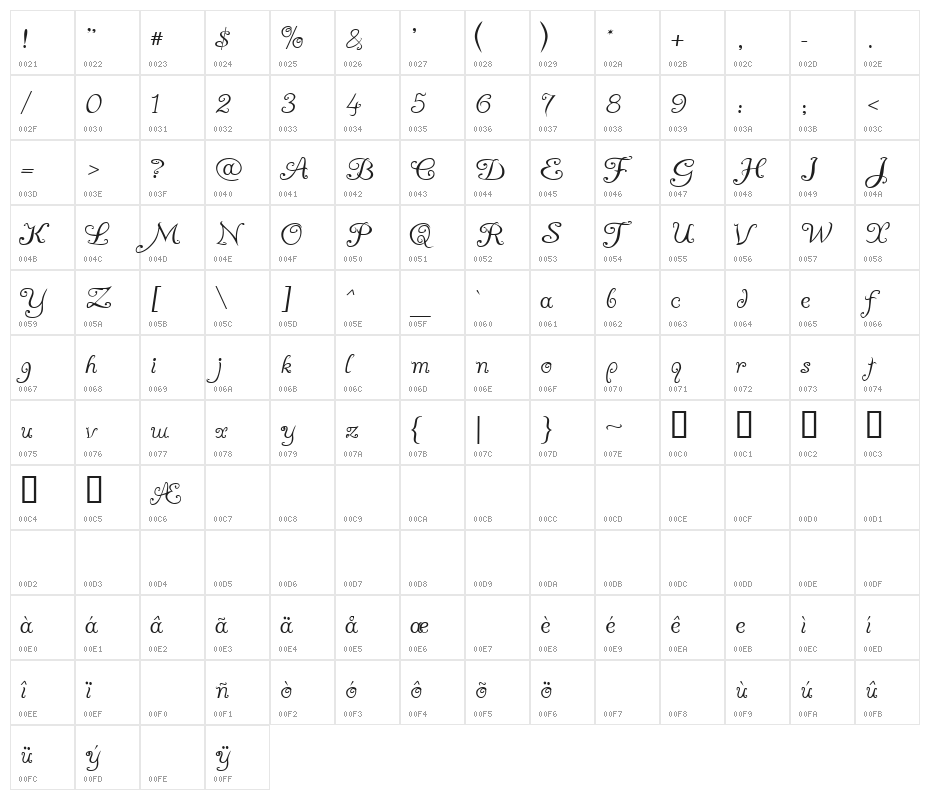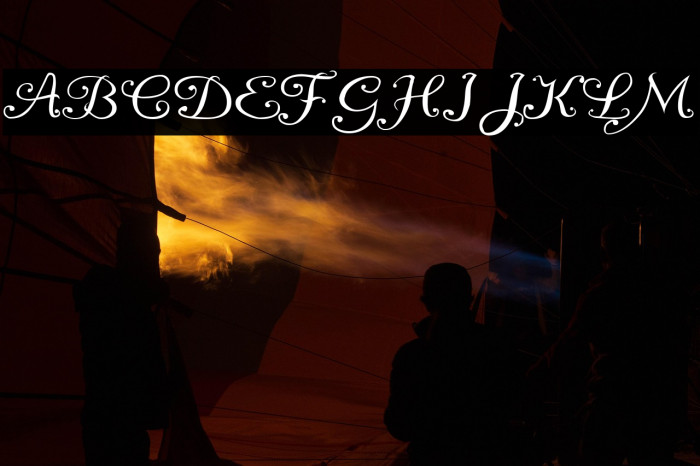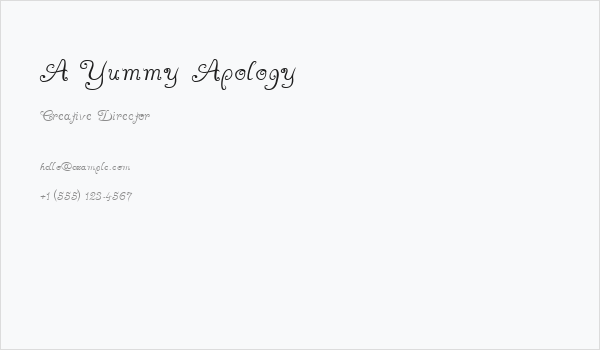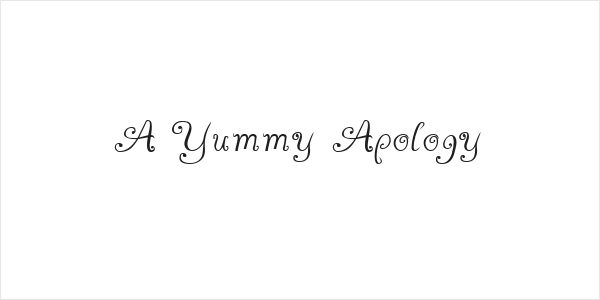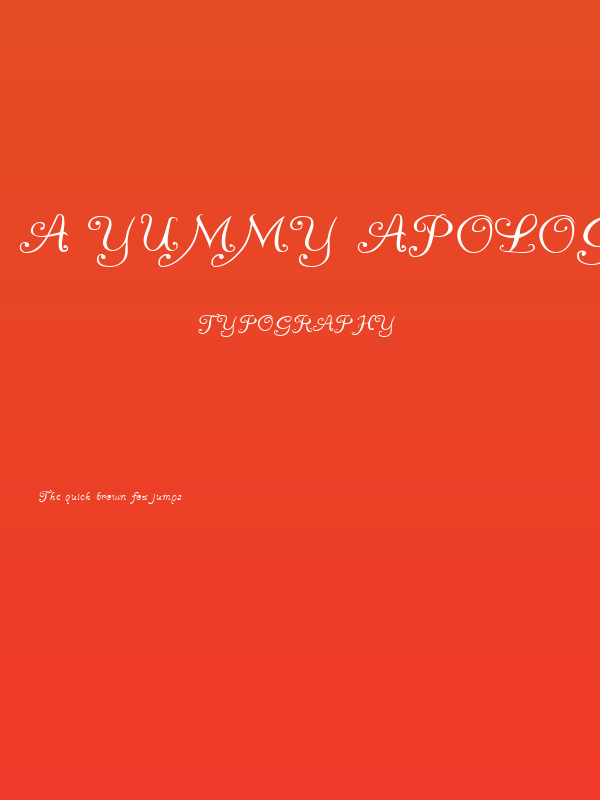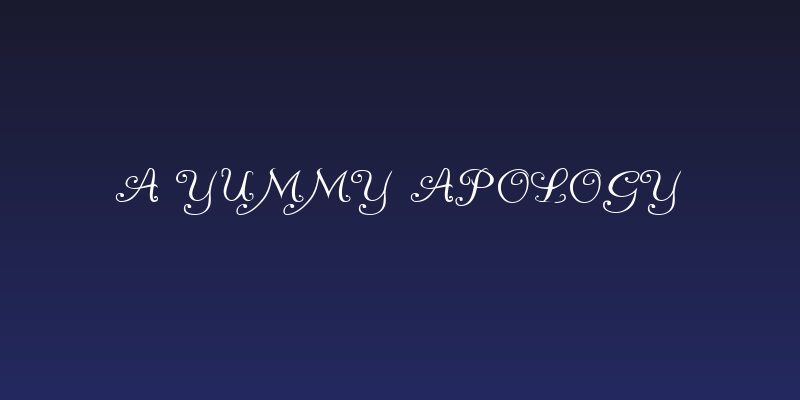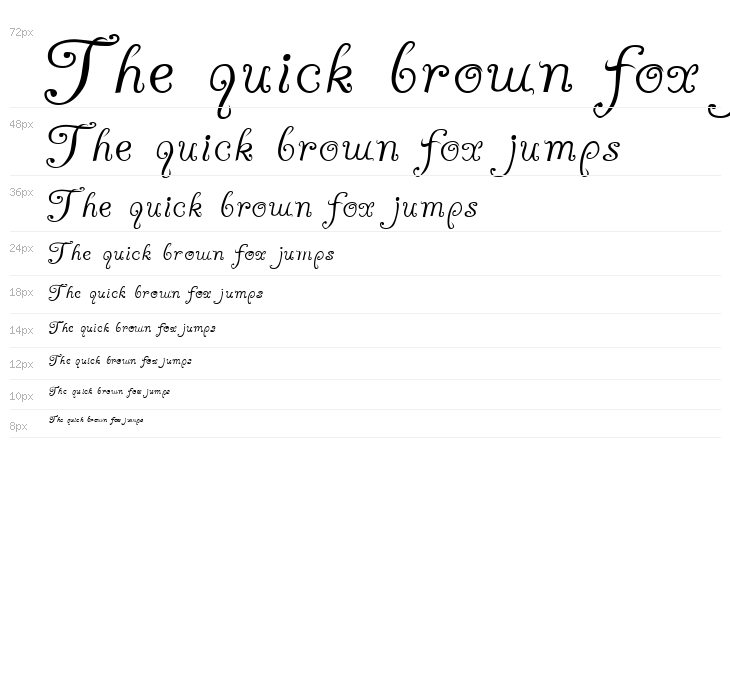
A Yummy Apology Font
A Yummy Apology Description
This font features an elegant and decorative script style, characterized by its flowing curves and intricate swirls. Each letter is adorned with unique embellishments, giving it a whimsical and artistic flair. The uppercase letters are particularly ornate, with loops and curls that add a touch of sophistication. The lowercase letters maintain a consistent style, with smooth, rounded forms that complement the uppercase set. Numbers and special characters are designed with the same attention to detail, ensuring a cohesive look across all glyphs. This font's playful yet refined appearance makes it suitable for creative and expressive projects.